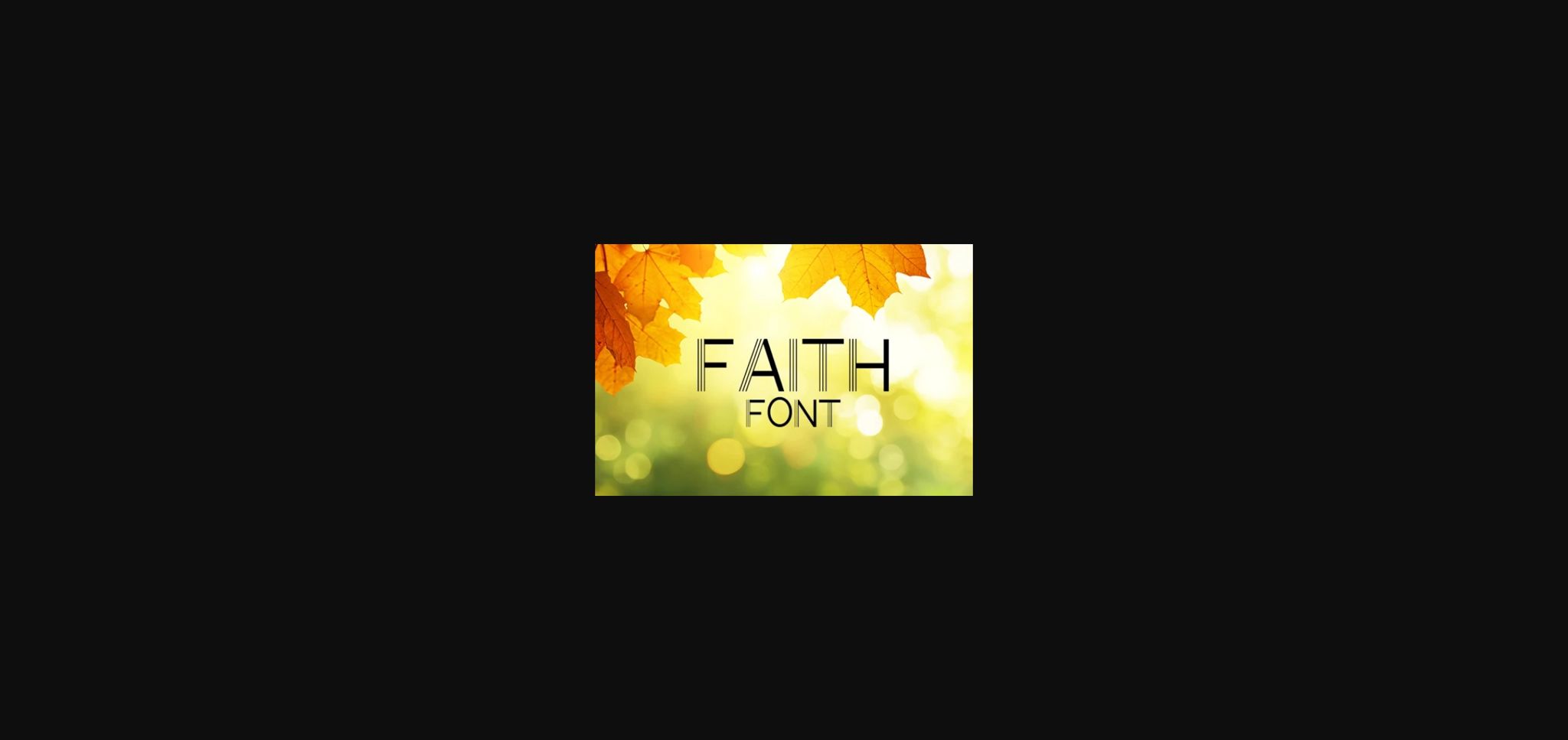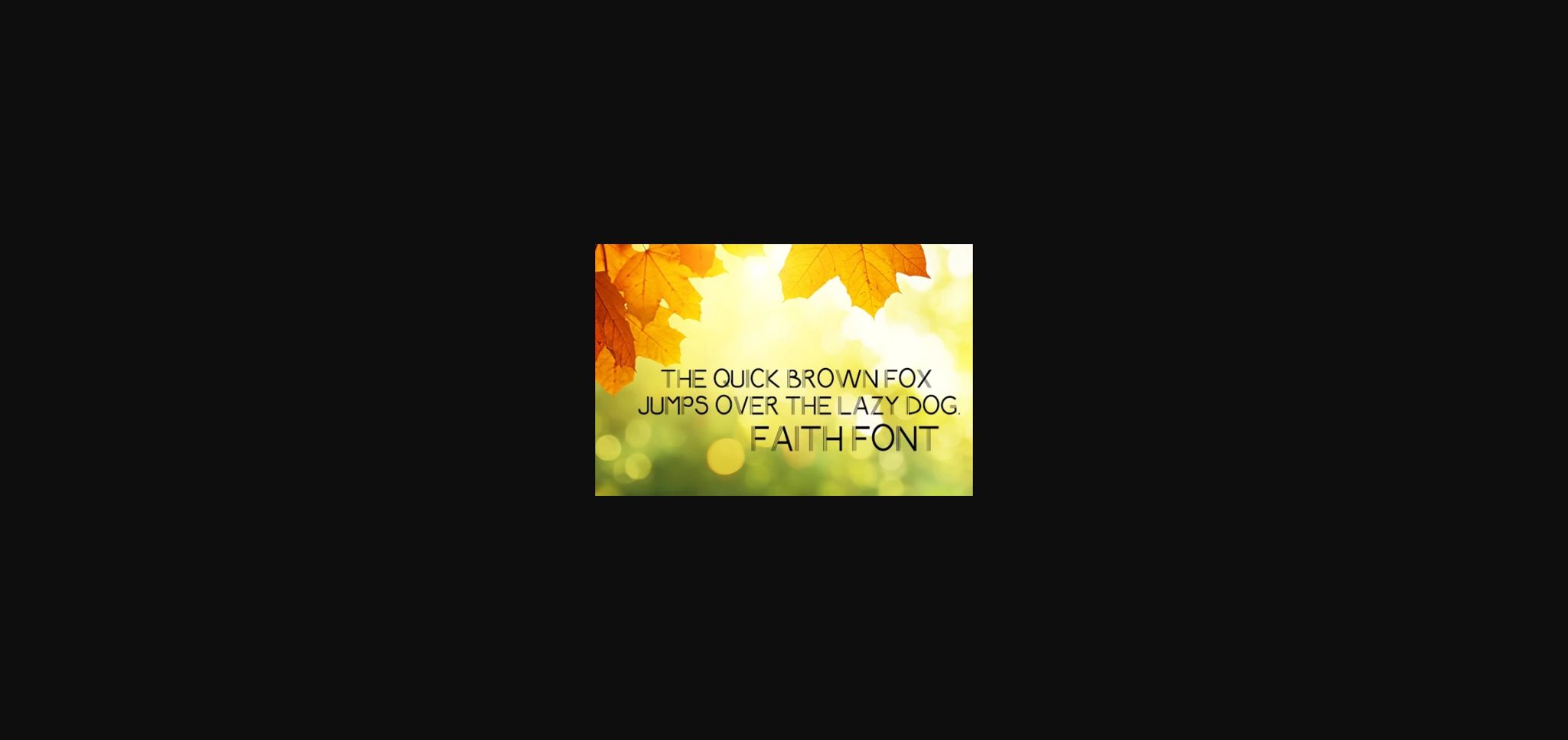
Faith Font
About Faith Font
Faith is a strong and modern sans serif font. Its casual charm makes it appear wonderfully down-to-earth, readable and, ultimately, incredibly versatile. Faith will look outstanding in any context, whether it’s being used on busy backgrounds or as a standalone headline!